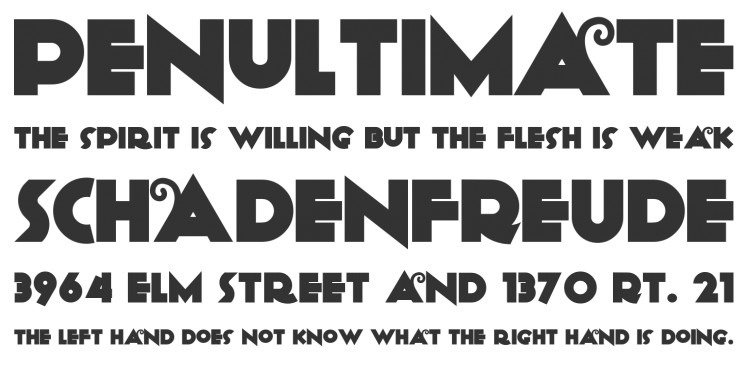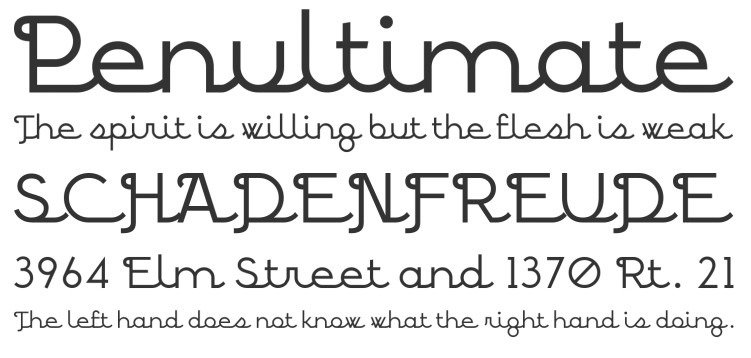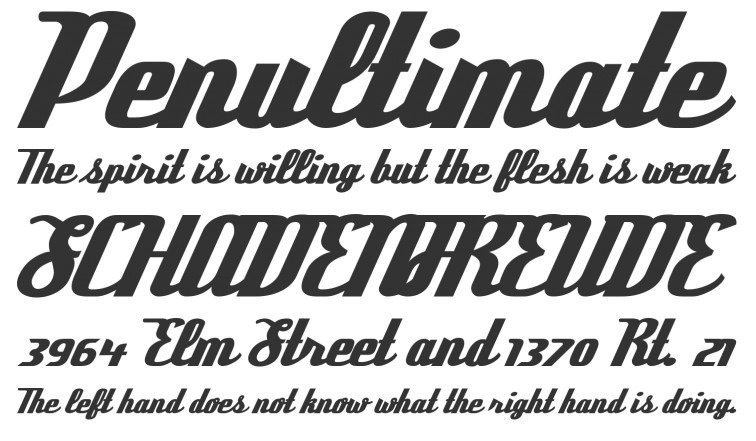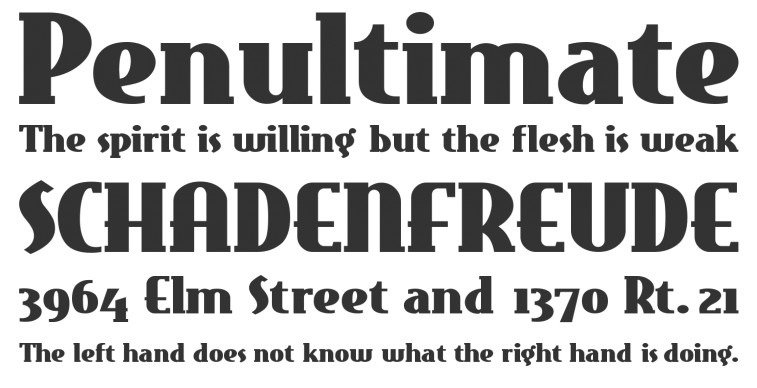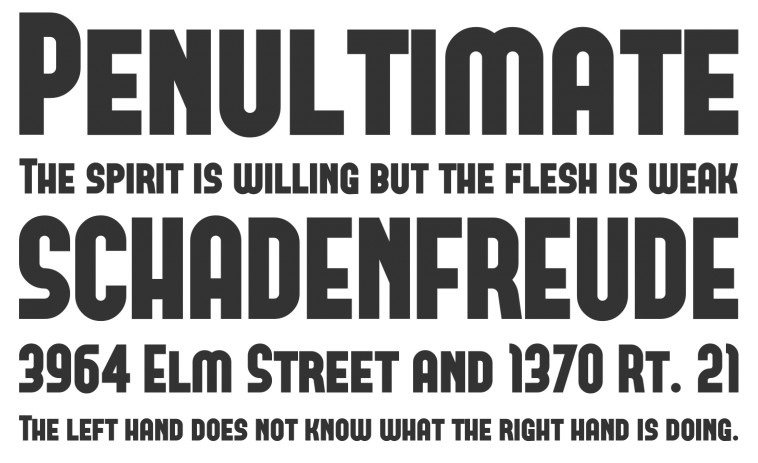
Anagram – MORE INFO
When speaking of the typography name, it is a type of word play that resulted from rearranging the letters of a word or phrase to create a new term or phrase. This typography makes use of uppercase letters and special characters.
BPScript – MORE INFO
This novelty vintage font features a cursive type of calligraphy with a touch of conventional means of writing the letters and fonts. It is utilized in some logos worldwide.
Deftone Stylus – MORE INFO
This elegant typography features a freehand calligraphy that is almost similar to hand written fonts and characters. This vintage typography is perfect for websites with a throwback approach.
East Market – MORE INFO
East Market is one of the free retro fonts that suit websites with classic themes. It contains upper & lowercase letters and special characters. It’s a must try for retro sites.
Forque – MORE INFO
Forque is a classic typography theme that features only uppercase letters and special characters. It is commonly used in various retro-themed industrial websites online that viewers will enjoy.